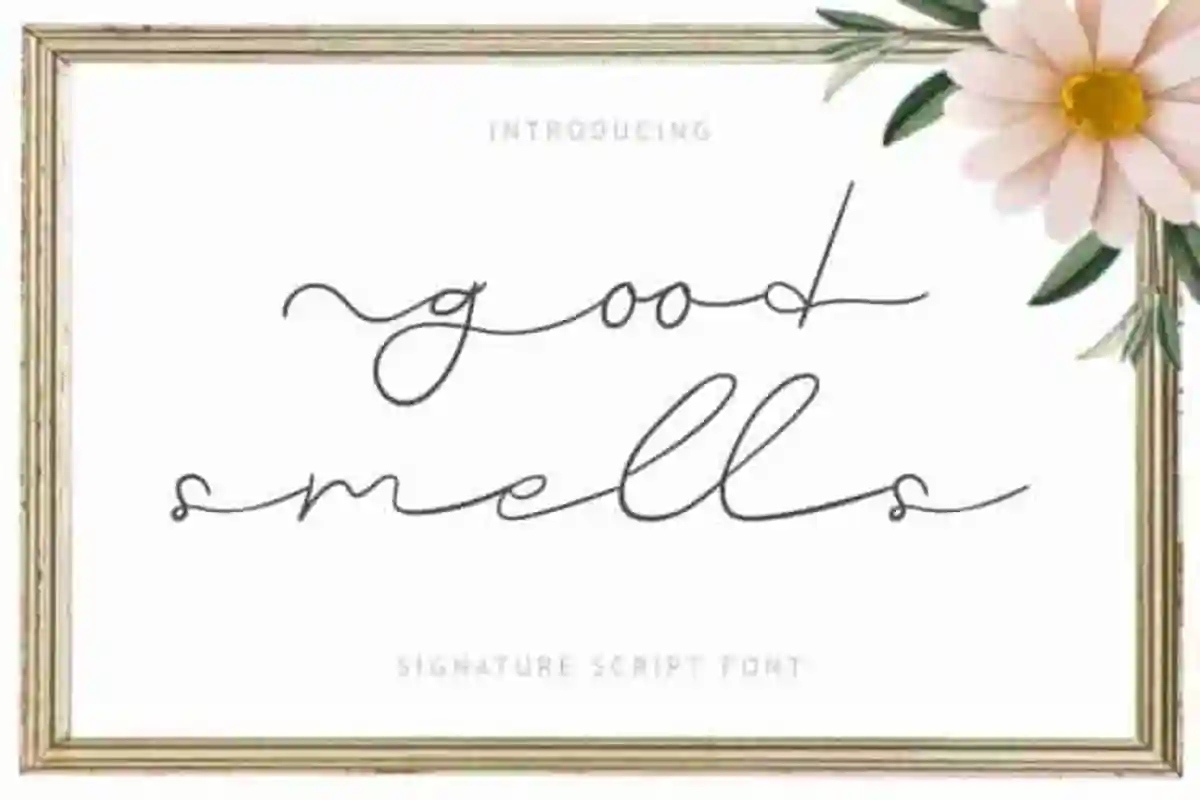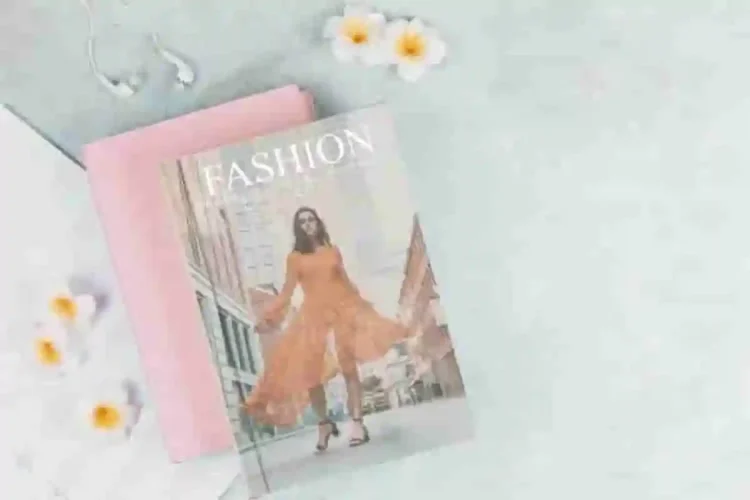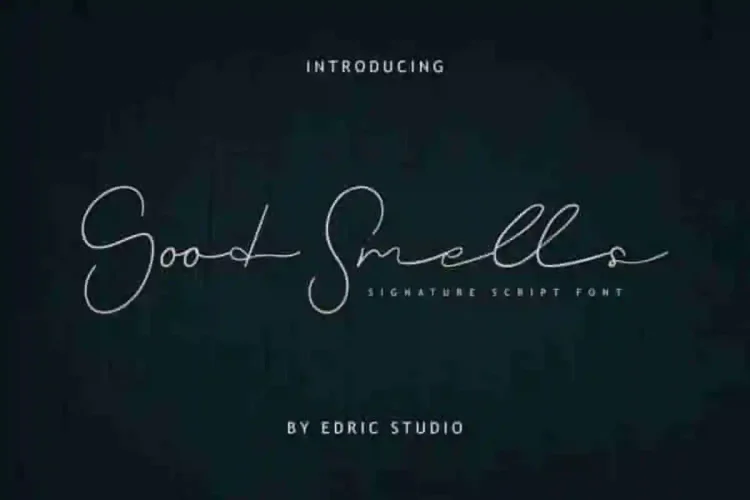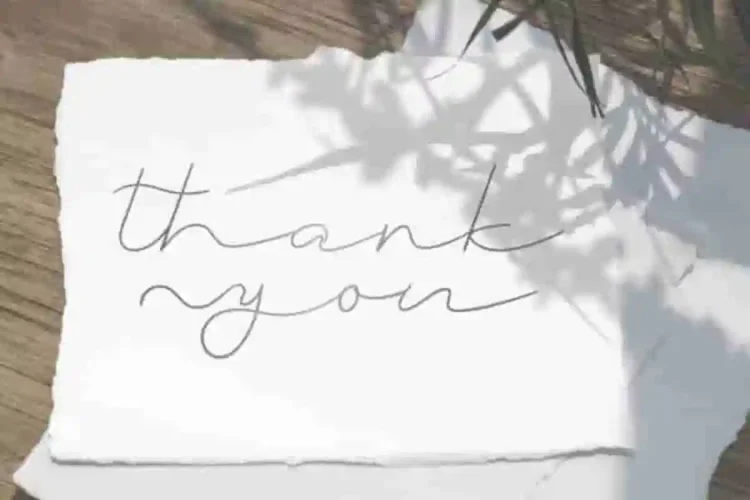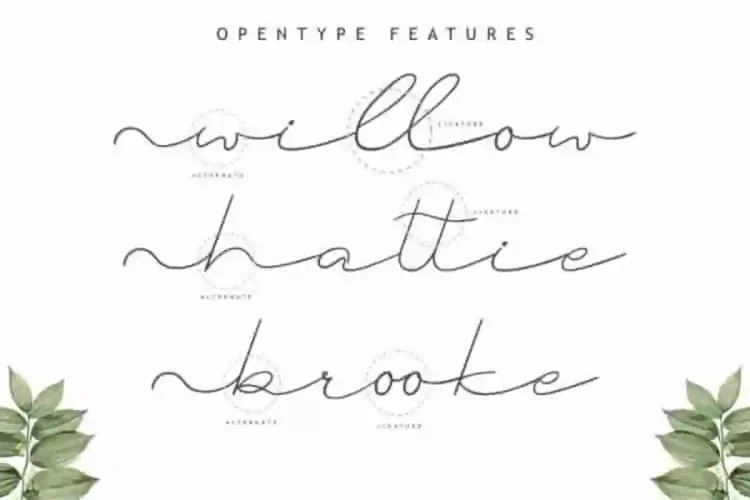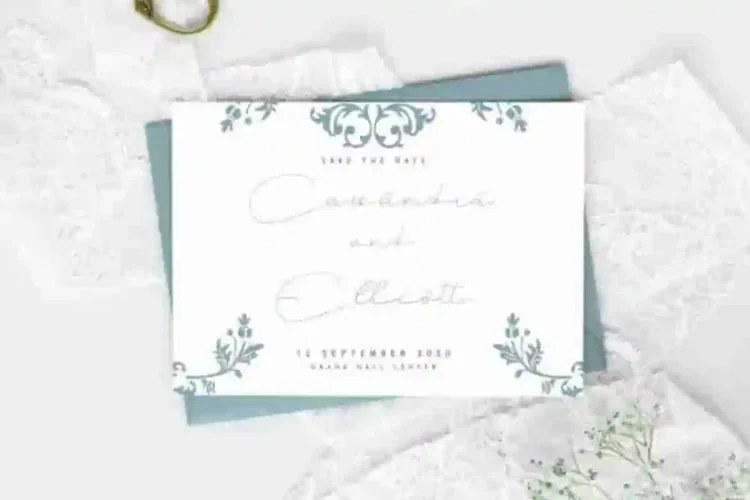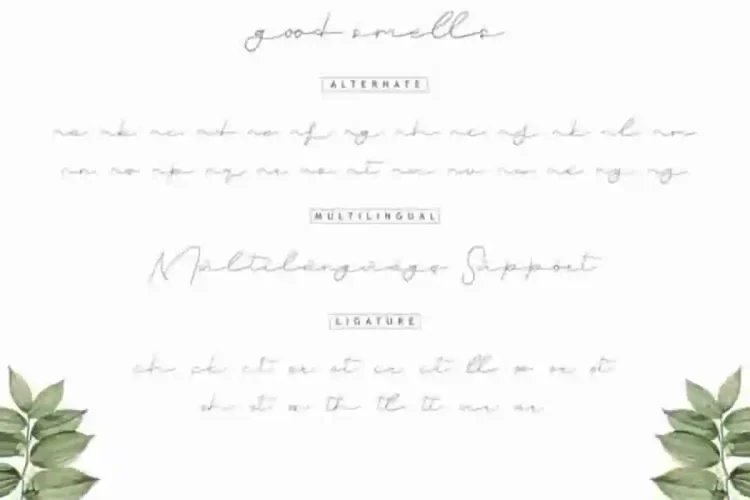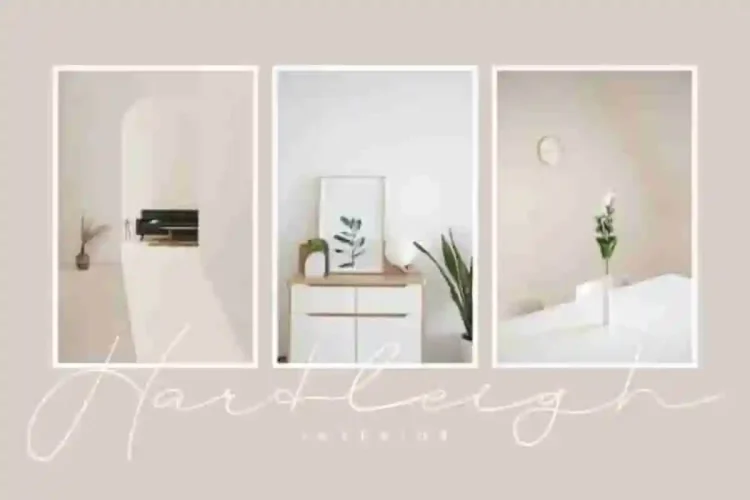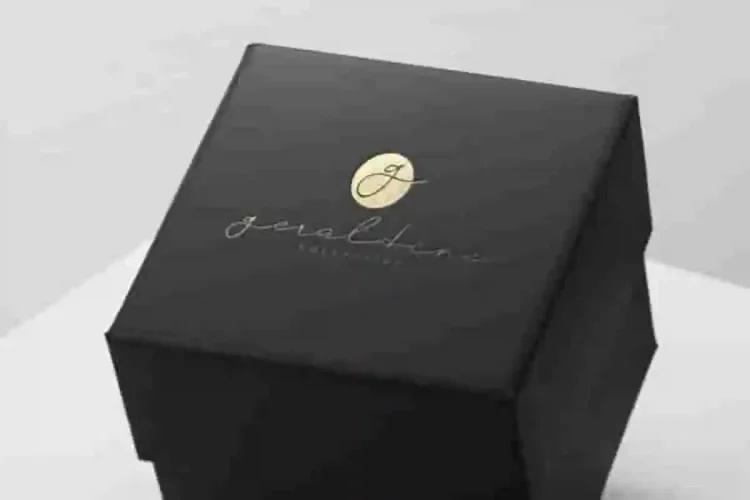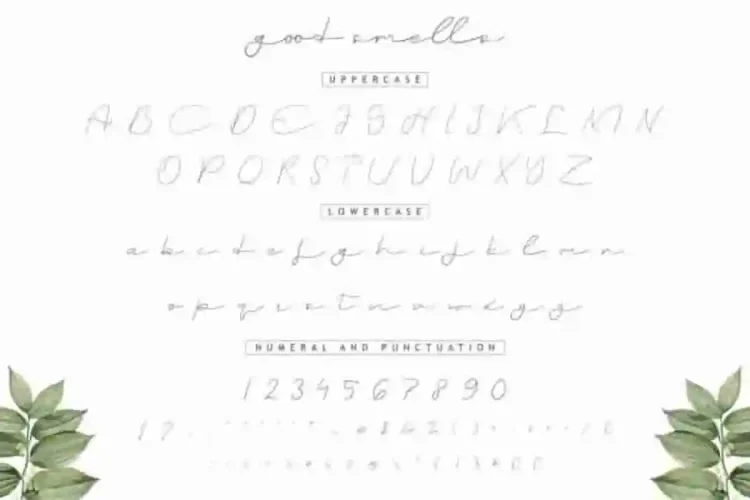
Good Smells Calligraphy Signature Font
Good Smells Signature Font!
This is a Signature script font, handcrafted from our Studio here in, Indonesia. The artists/designers of this beautiful tyeface is Yasri and Sarah Suci.
Good Smells Calligraphy Signature Font is an exclusive display calligraphy typeface with manual hand pen style. This font has a stunning characters set, perfectly managed with well spaced and kerning.
Good Smells Calligraphy Signature Font will be great for any projects including : branding, logo, stationery, business card, signage, flyer, brochure etc. Almost all industries will be match for this typeface: wedding, events, real estate, architect, law firm, florist, gardening, makeup artist, travel, hotel, musician etc.